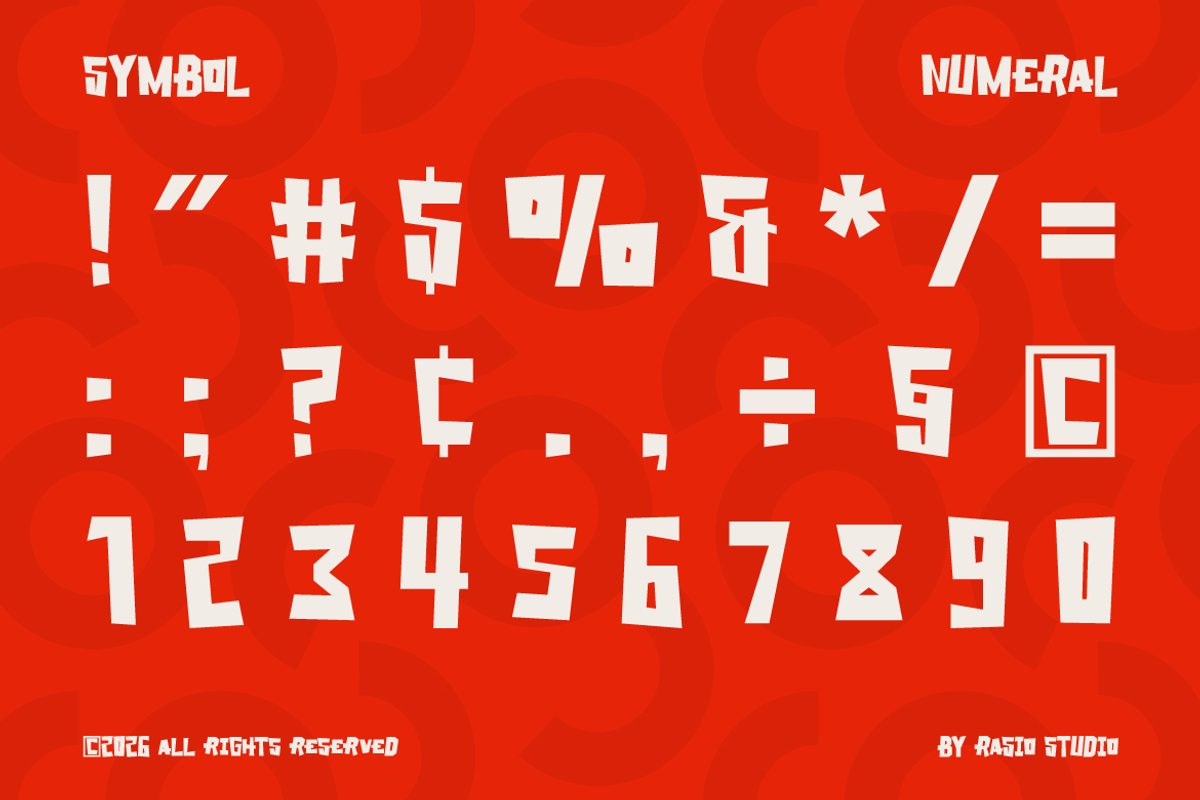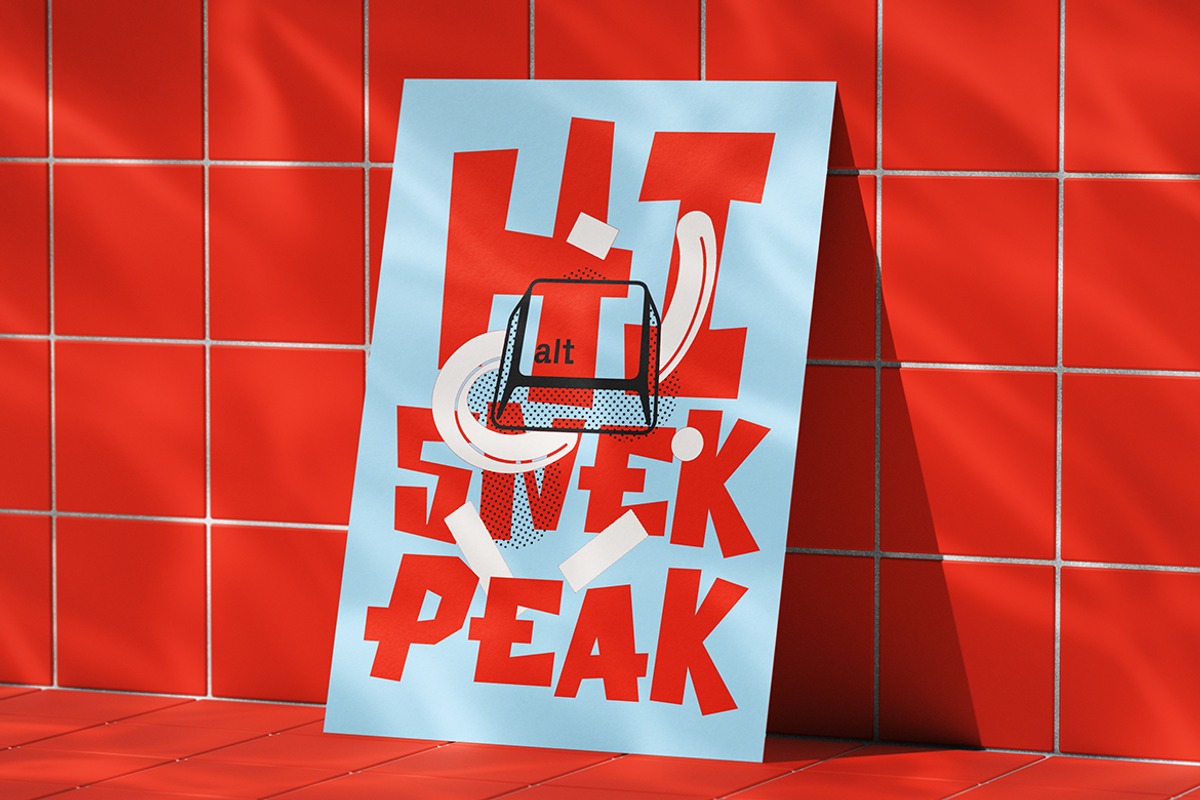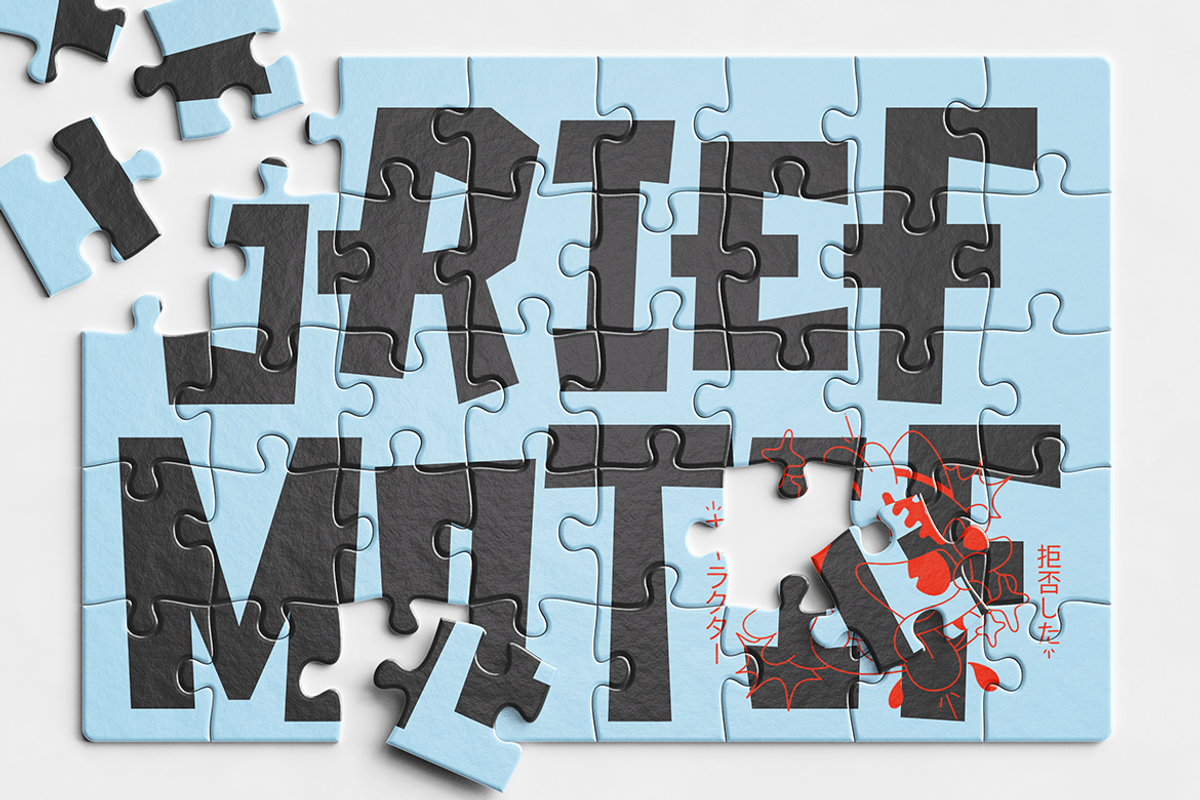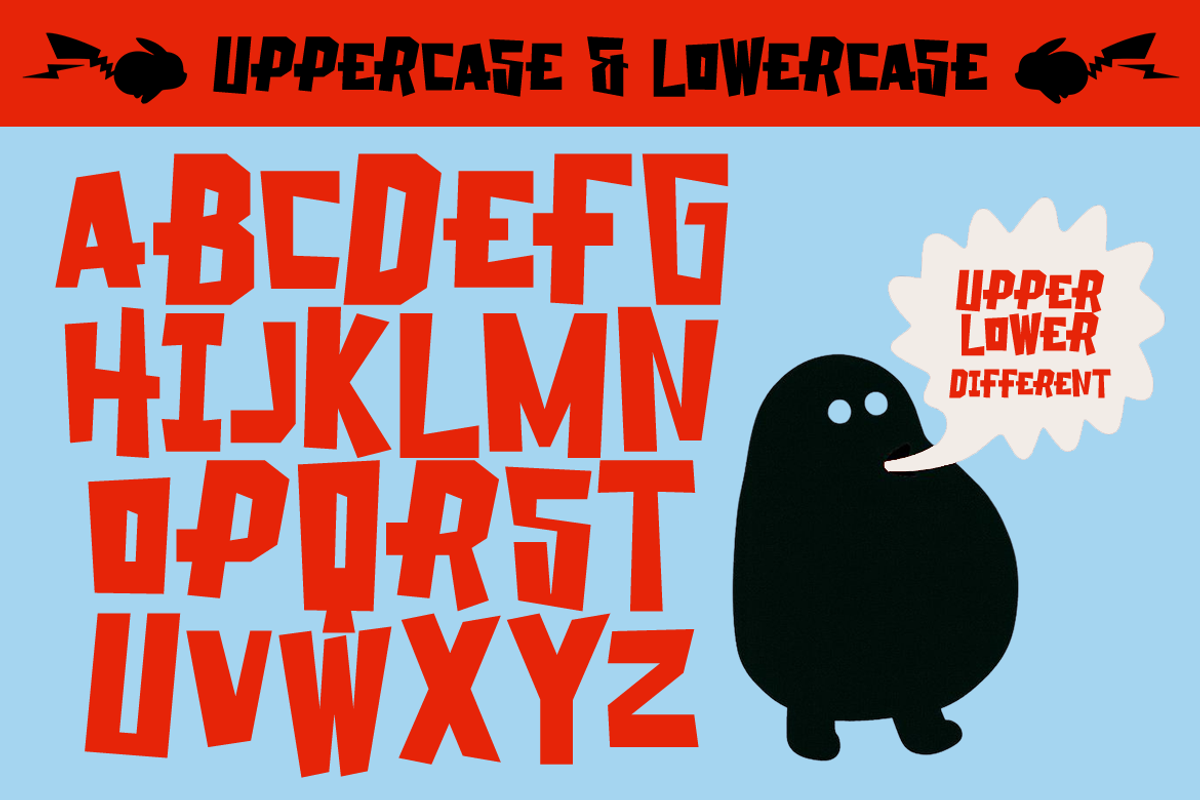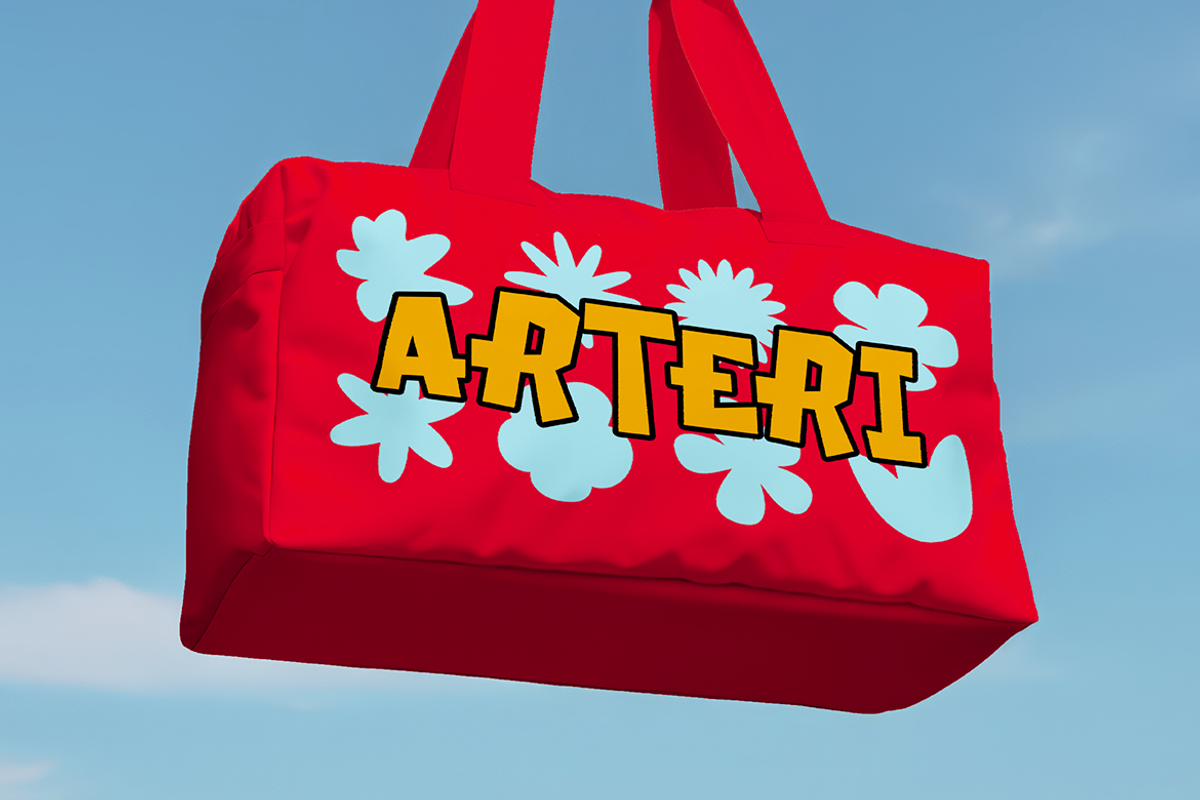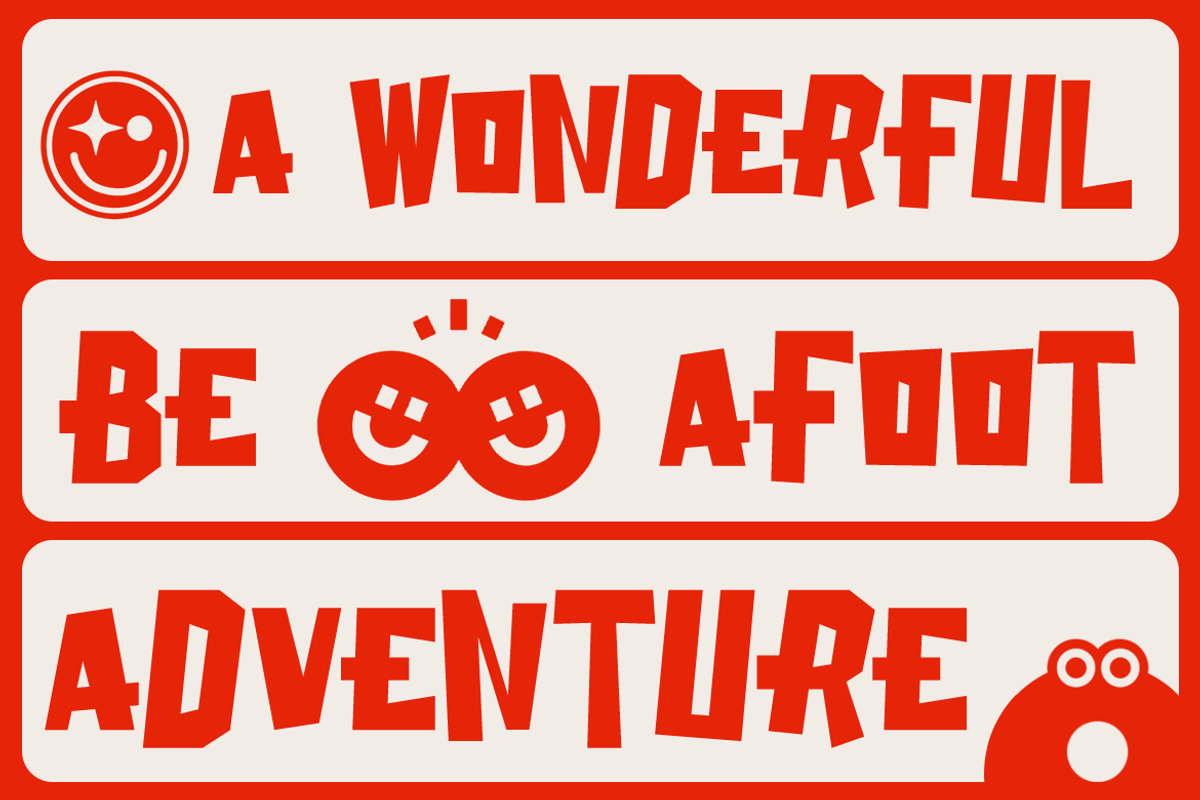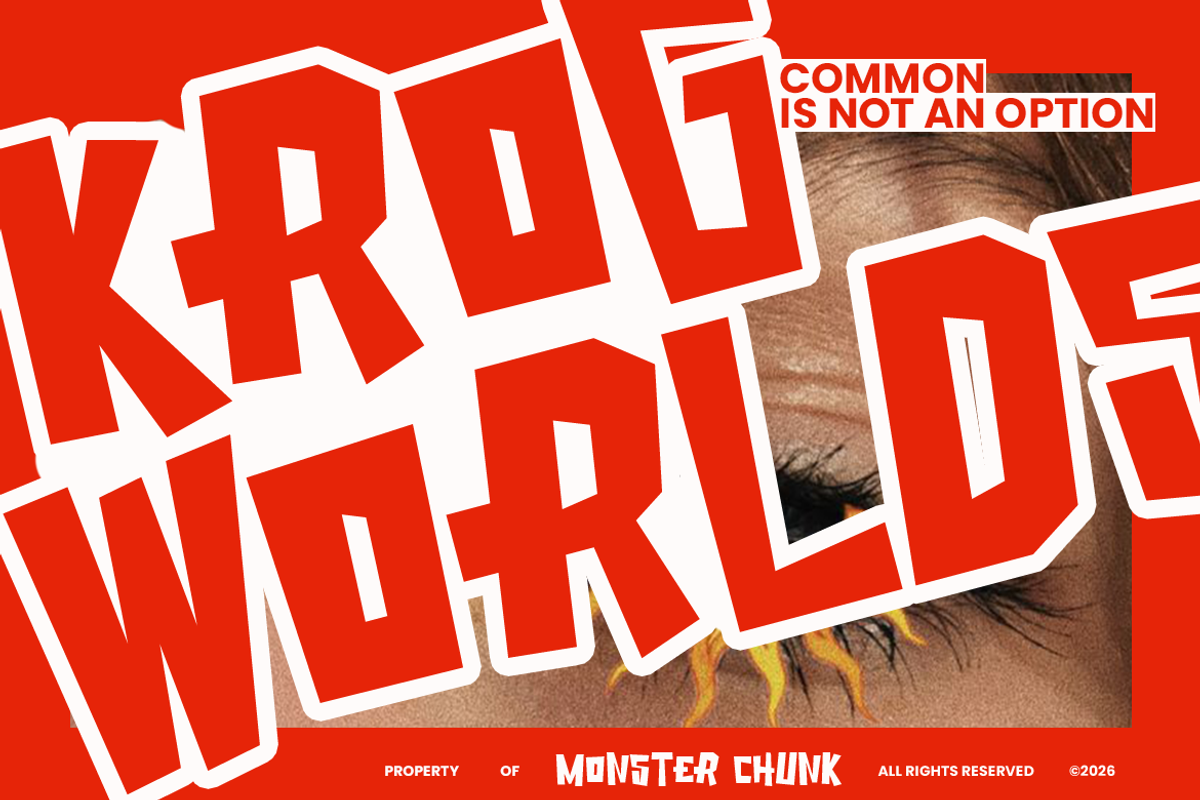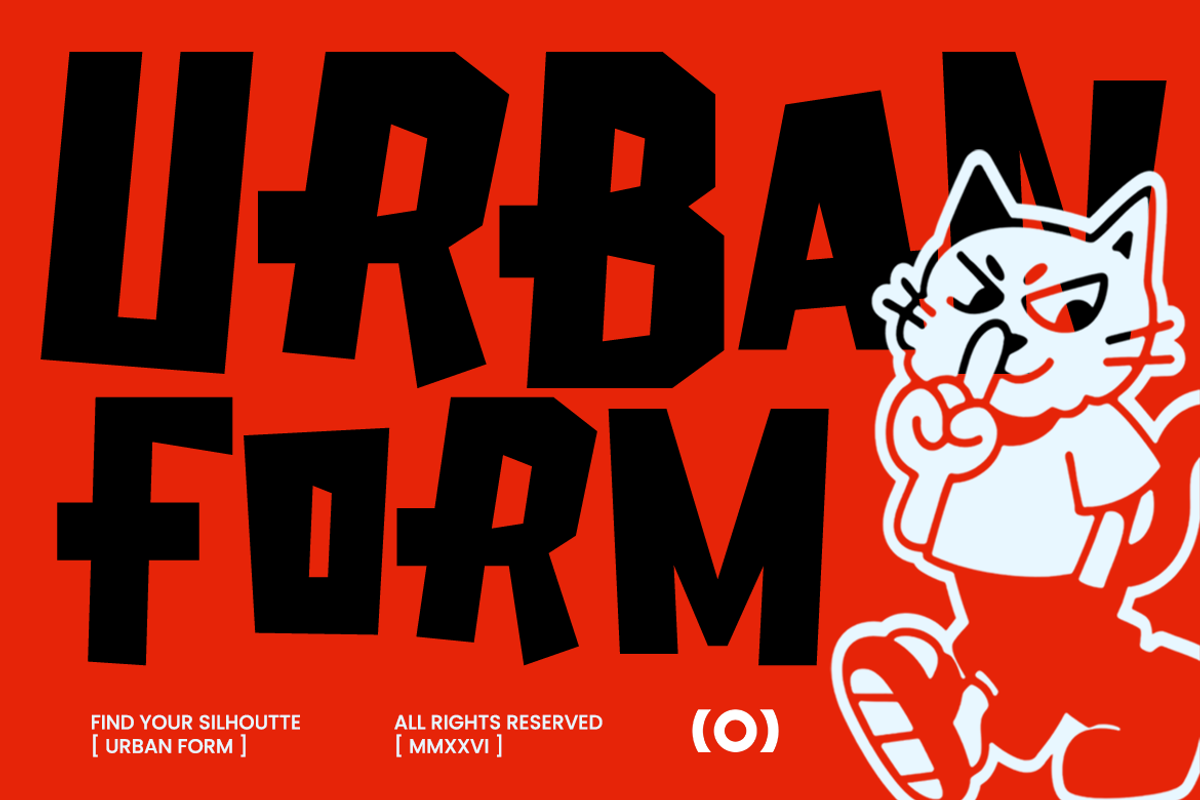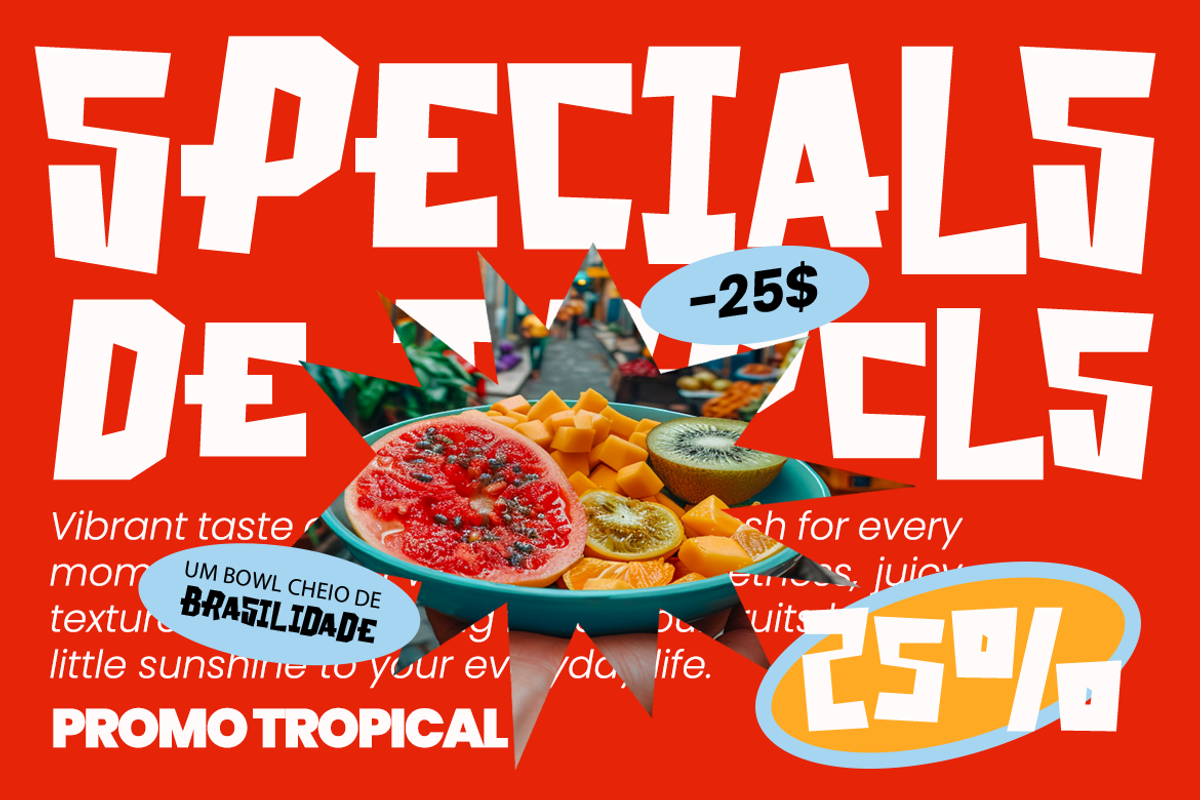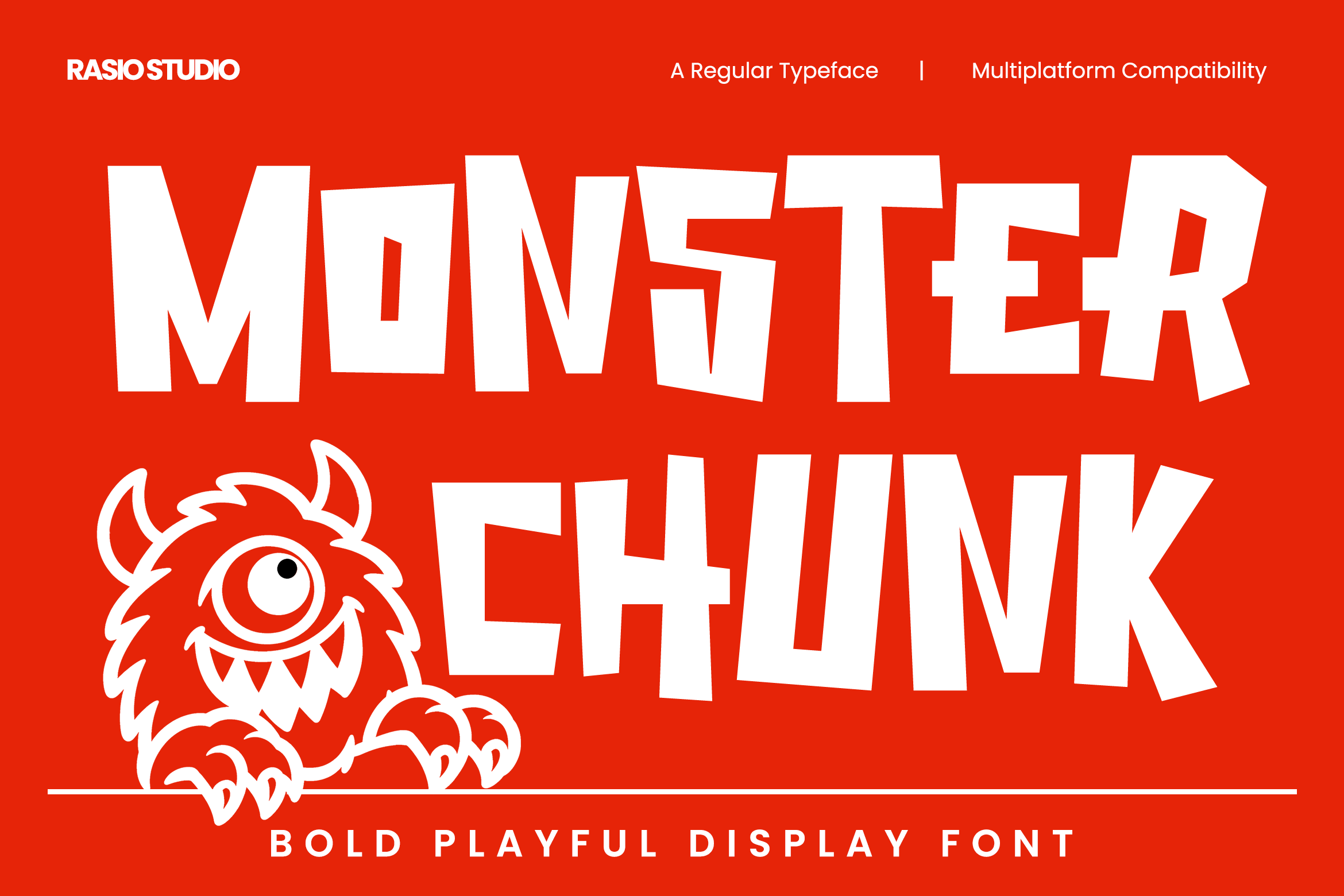
Monster Chunk Bold Playful Font
Monster Chunk Bold Playful Font is a bold playful display typeface built around oversized, irregular letterforms with a chunky geometric structure and expressive angular cuts. The characters have uneven proportions, sharp corners, slanted edges, and compact internal spaces that create a deliberately unconventional silhouette. Its heavy construction gives each letter a strong visual presence, while the asymmetrical shapes add a quirky, energetic personality that feels playful without relying on decorative details. The uppercase and lowercase characters share the same bold visual language, making the typeface especially effective when used for prominent headlines and short phrases.
Designed as a statement display font, Monster Chunk works particularly well when typography needs to become a major part of the artwork. It can be used for children-oriented graphics, gaming artwork, cartoon branding, posters, stickers, packaging, merchandise, apparel graphics, event titles, social media artwork, logos, and playful promotional designs. The unusual letter construction also makes it useful for creating memorable wordmarks and eye-catching title treatments where a conventional typeface would feel too restrained. The package includes uppercase and lowercase characters along with supporting glyphs, providing flexibility for both short display words and more expressive typographic compositions.
Heavy chunky construction creates an instantly noticeable display presence
Irregular letter proportions give the typeface a playful and unconventional character
Angular cuts and uneven edges create distinctive silhouettes across the alphabet
Bold strokes maintain strong visibility in large headlines and graphic compositions
Compact counters and internal spaces reinforce the dense block-like appearance
Brand identity systems for playful, bold, and character-driven brands
Gaming, arcade, and entertainment graphics with a strong visual impact
Poster, sticker, and merchandise designs requiring expressive typography
Packaging and product labels for fun, youth-oriented, or novelty products
Cartoon, mascot, and children's branding with an energetic personality